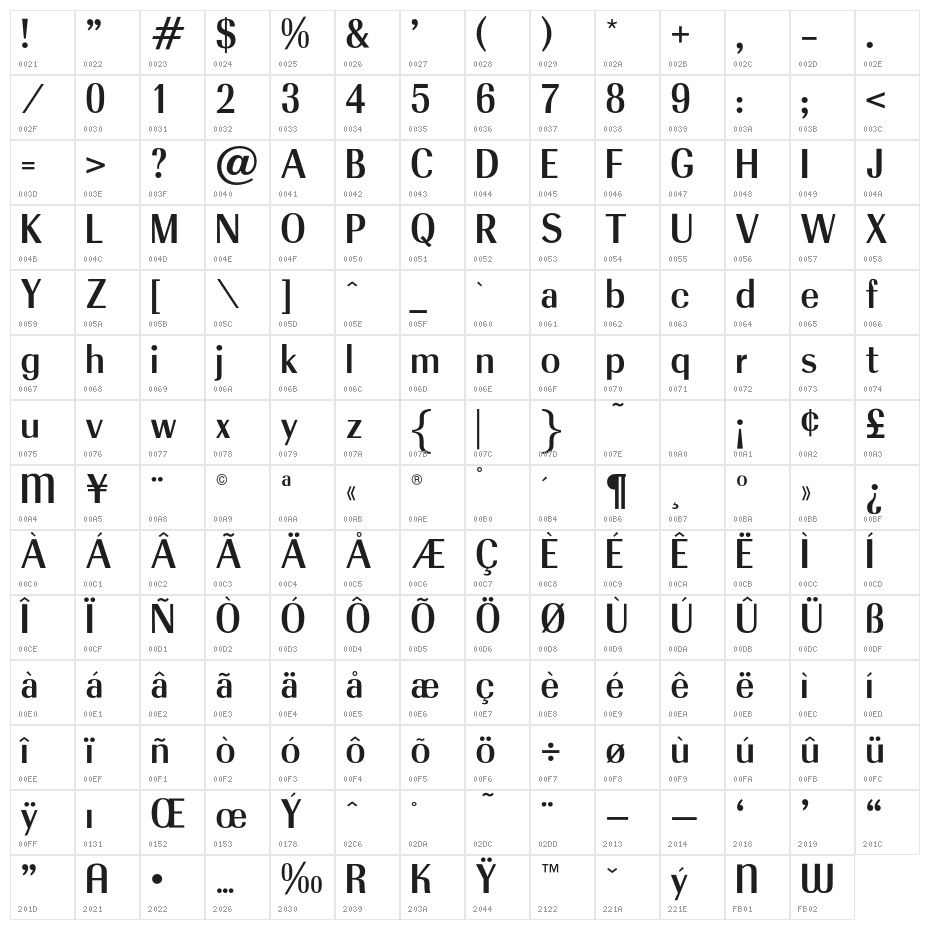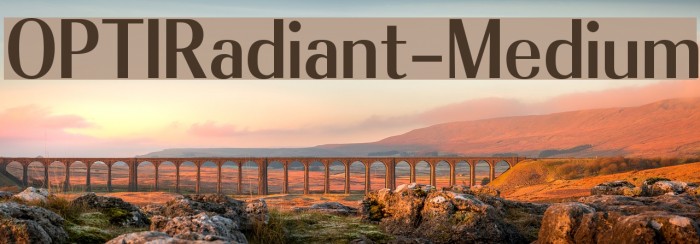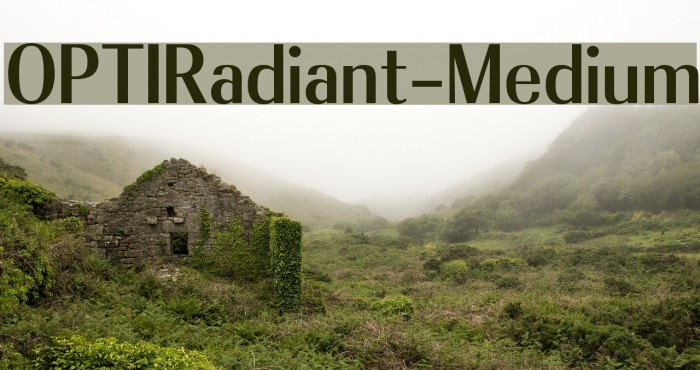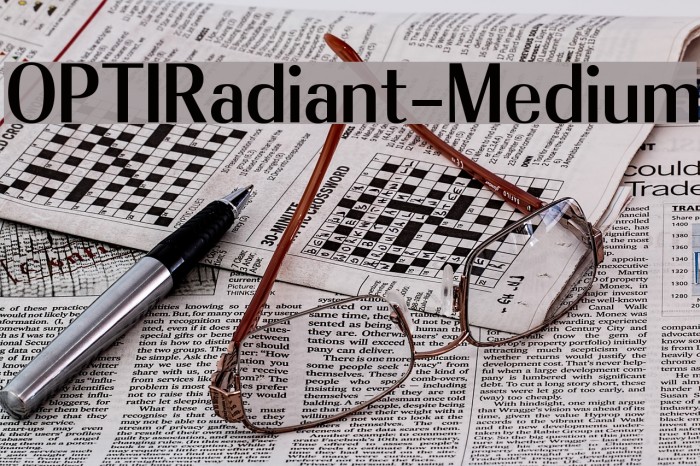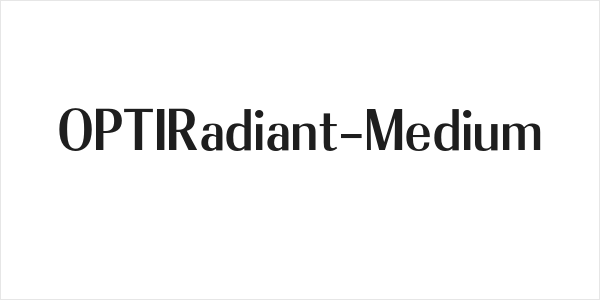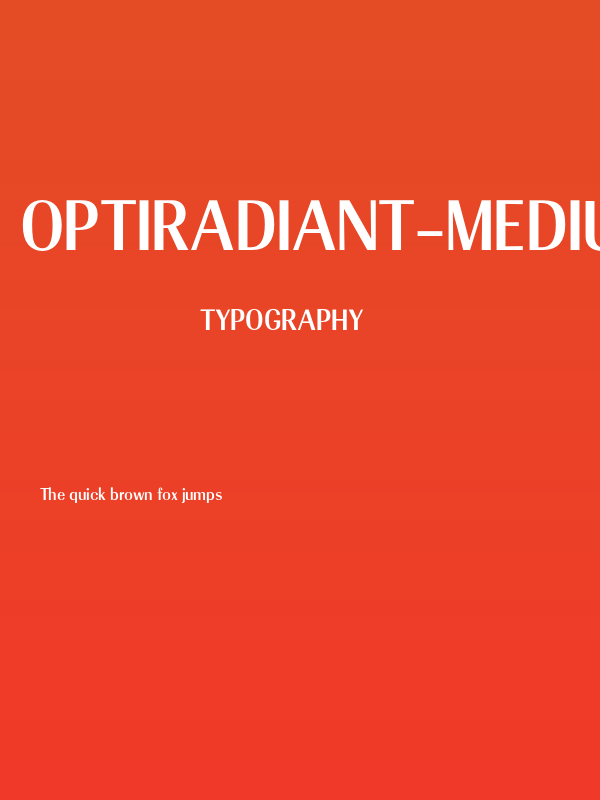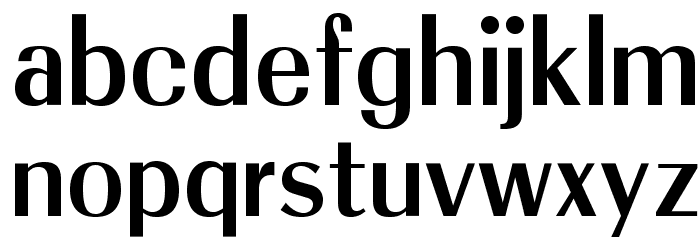
OPTIRadiant-Medium Font
OPTIRadiant-Medium Description
This typeface features a clean and modern design with a strong presence. The uppercase letters are bold and assertive, while the lowercase letters maintain a smooth and balanced appearance. The numerals are clear and easy to read, making them suitable for various applications. The special characters are well-defined, adding versatility to the font. Its overall style is contemporary, with a slight geometric influence that enhances its readability and visual appeal. The font's structure is consistent, providing a harmonious look across different text sizes.